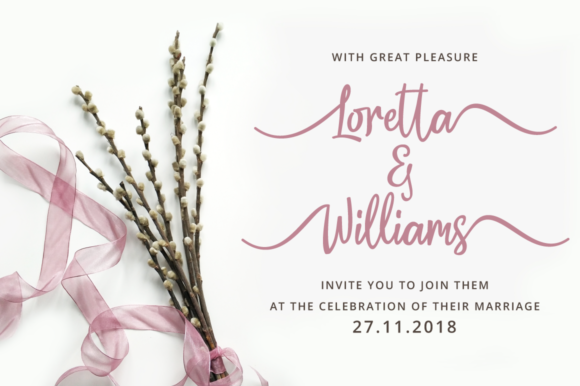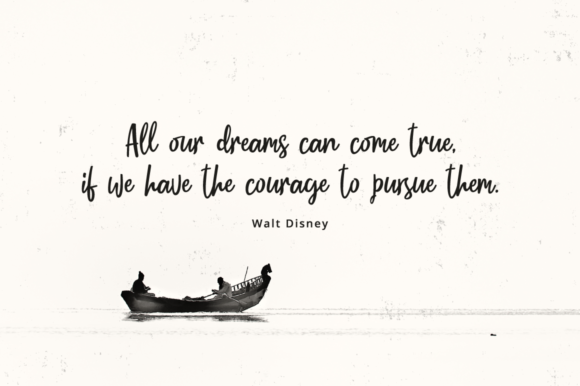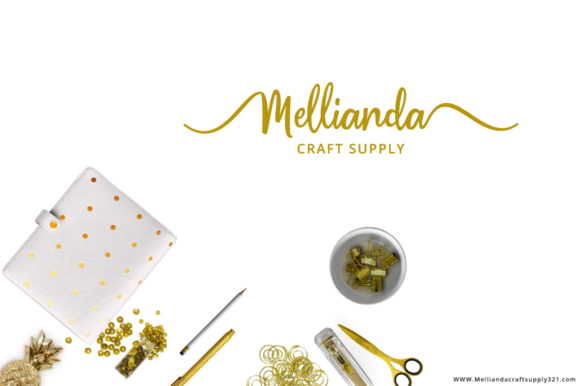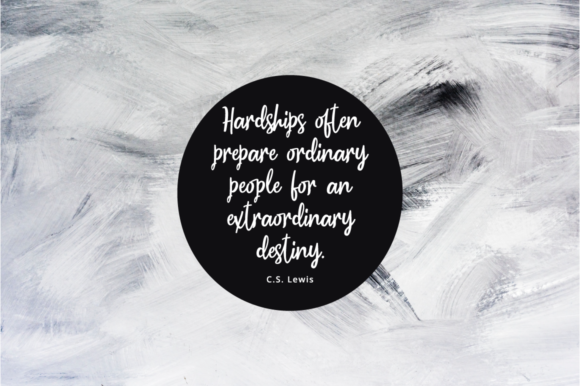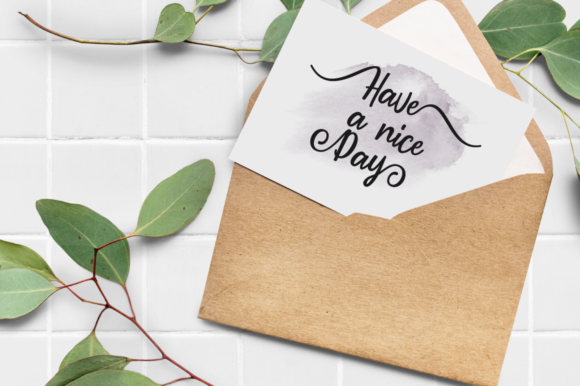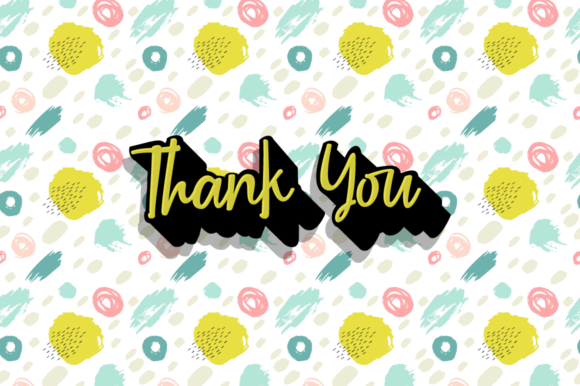
Moontello Script Font
The Moontello is a fresh & natural script font with a handwritten style. It has a natural style which will add a personal touch to your designs.
It’s perfect for greeting cards, branding materials, business cards, quotes, posters, logos, greeting cards, wedding stationery, and more!